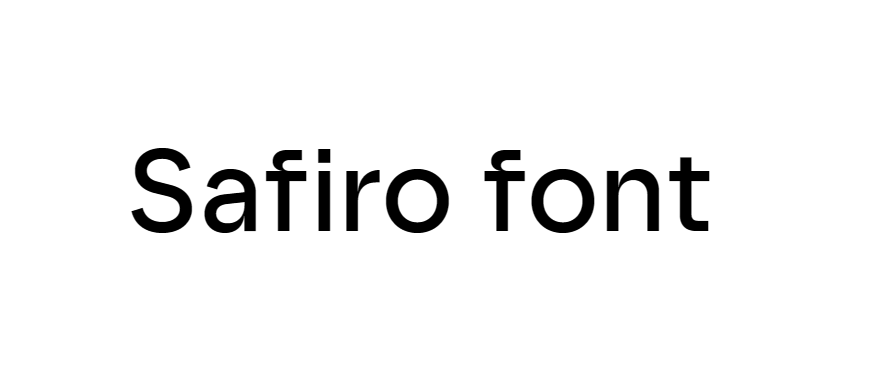
Safiro font
Safiro is a sans serif font made by atipo. Its clean letters skip the little "feet" (serifs) of traditional type, so it looks modern and reads well on screens. You can download it for free and test it with your own words in the preview above.
What You Can Type With Safiro
Safiro covers the full alphabet in upper and lowercase, plus all ten numbers, so you can set names, dates and prices without switching fonts. Common punctuation such as &, !, ? and @ is included as well. It also has the accented letters you need for Spanish, French, German, Portuguese and Italian.
Where Safiro Works Best
Designers usually reach for fonts like Safiro when they're making websites, app screens and clean logos. It works for headings and body text alike. If the download has several weights, use a heavier one for titles and a lighter one for paragraphs.
Does Safiro support accented letters?
Yes. Safiro includes the accented letters needed for Spanish, French, German, Portuguese and Italian, so it works for more than just English.